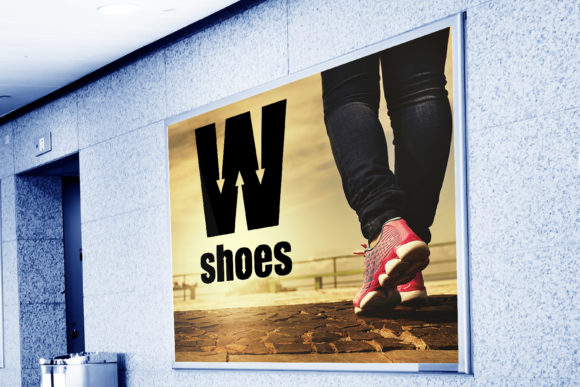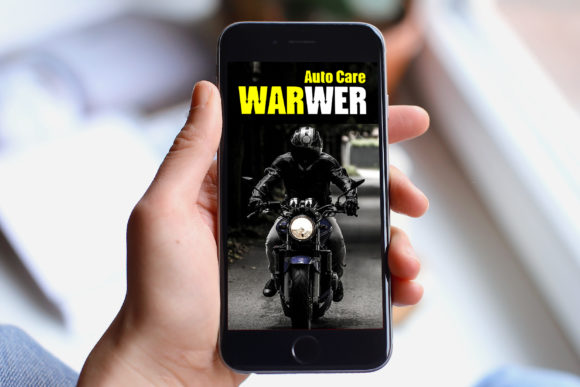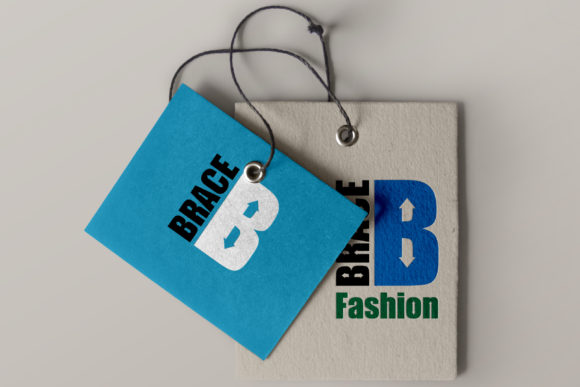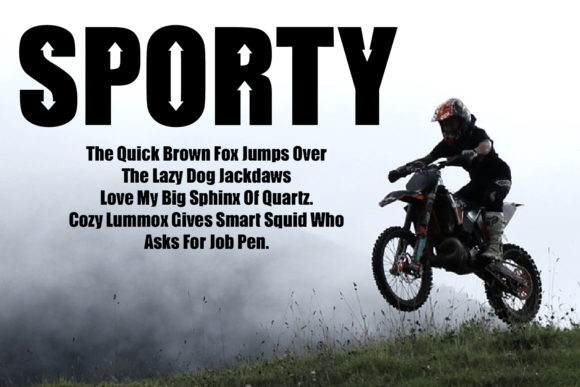
Direction Font: A Fun and Inspiring Sans Serif Typeface
Are you a designer or crafter looking for a font that can add a touch of playfulness and boldness to your projects? Look no further than the Direction Font! This fun sans serif typeface is designed to inspire creativity and bring a sense of excitement to your work. In this article, we’ll take a closer look at the Direction Font, its features, and how you can use it to take your designs to the next level.
What is Direction Font?
Direction Font is a modern sans serif typeface that is characterized by its simple yet bold feel. The font is designed to be highly legible and versatile, making it perfect for a wide range of applications, from digital projects to print materials. One of the standout features of the Direction Font is its detailed arrows, which add a touch of whimsy and fun to the design.
Key Features of Direction Font
- Simple yet bold feel: The Direction Font has a clean and minimalist design that is both modern and sophisticated.
- Detailed arrows: The font features intricate arrows that add a touch of playfulness and creativity to the design.
- Highly legible: The Direction Font is designed to be easy to read, making it perfect for body text and headlines.
- Versatile: The font is suitable for a wide range of applications, from digital projects to print materials.
How to Use Direction Font in Your Designs
The Direction Font is a versatile typeface that can be used in a variety of design projects. Here are a few ideas to get you started:
- Headlines and titles: Use the Direction Font to create bold and eye-catching headlines and titles that grab attention.
- Digital projects: The font is perfect for digital projects, such as website designs, social media graphics, and presentations.
- Print materials: The Direction Font can also be used in print materials, such as brochures, flyers, and posters.
- Crafting and DIY projects: The font’s playful and creative feel makes it perfect for crafting and DIY projects, such as handmade cards and gift tags.
Inspiration and Creative Ideas
The Direction Font is designed to inspire creativity and bring a sense of excitement to your work. Here are a few ideas to get you started:
- Use the arrows to add visual interest: The detailed arrows in the Direction Font can be used to add visual interest to your designs and create a sense of movement.
- Experiment with different colors and textures: The font’s bold and playful feel makes it perfect for experimenting with different colors and textures.
- Combine with other fonts: The Direction Font can be paired with other fonts to create a unique and creative look.
The Direction Font is a fun and inspiring sans serif typeface that is perfect for designers and crafters looking to add a touch of playfulness and boldness to their projects. With its simple yet bold feel, detailed arrows, and highly legible design, this font is sure to bring a sense of excitement and creativity to your work. Whether you’re working on a digital project or a print material, the Direction Font is a great choice for anyone looking to make a statement.